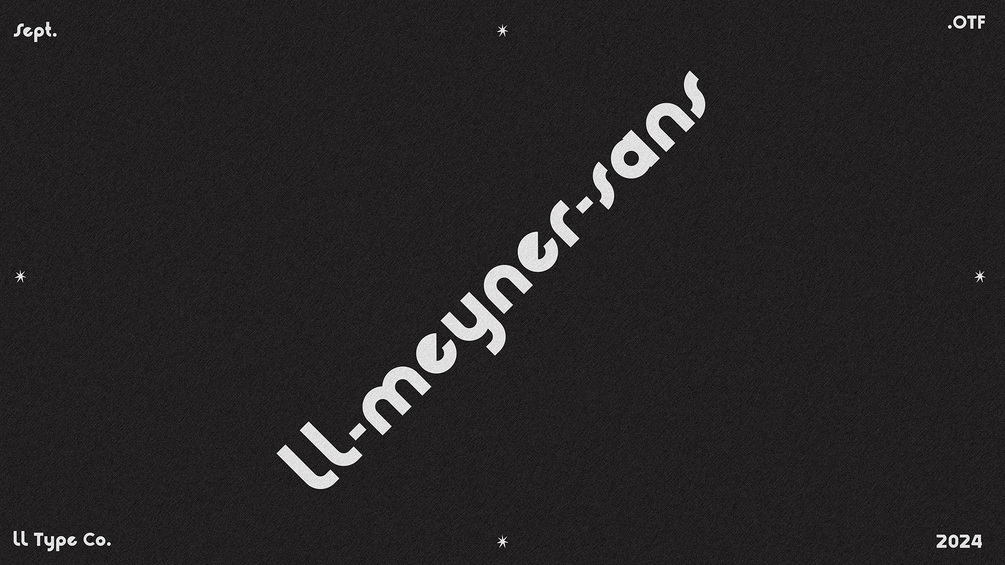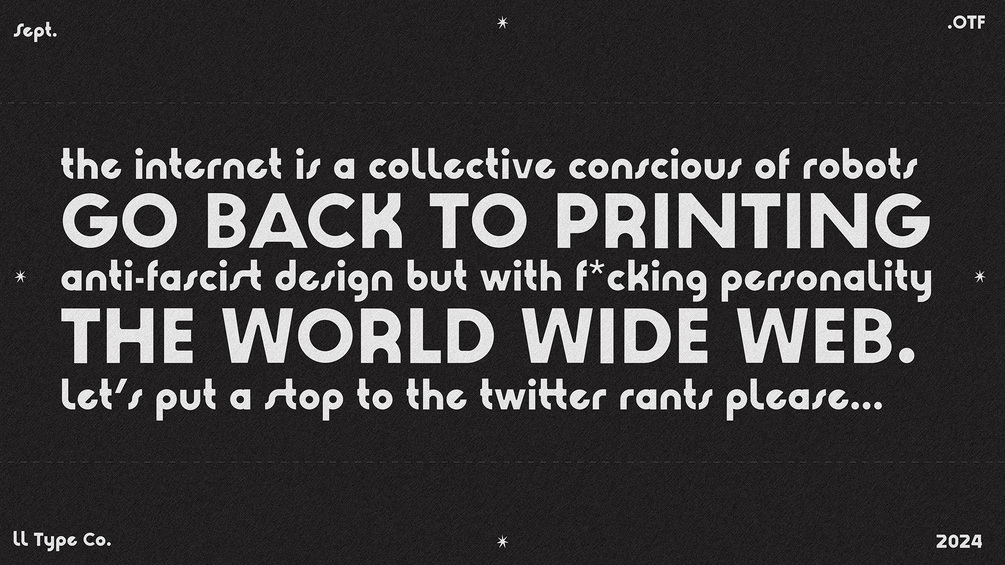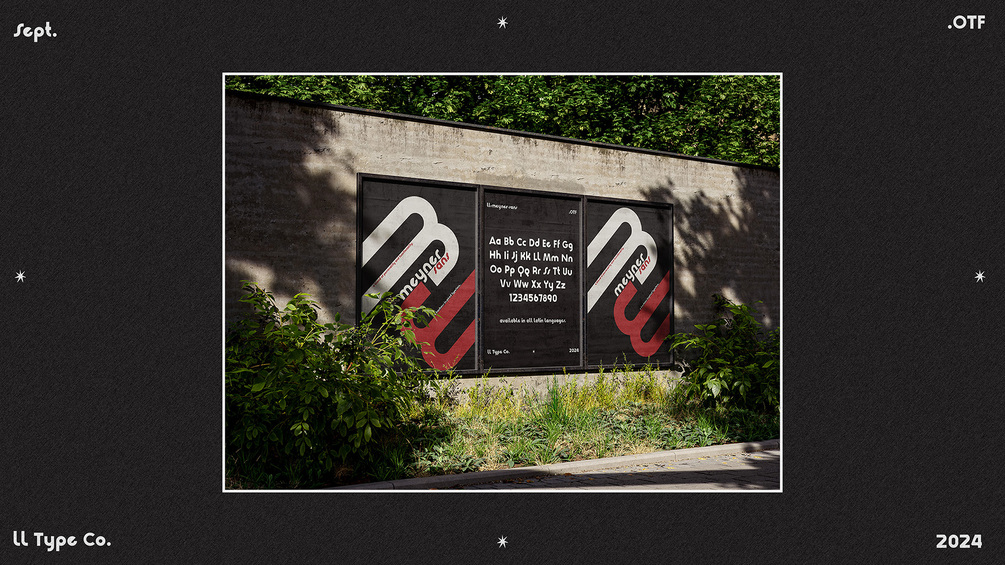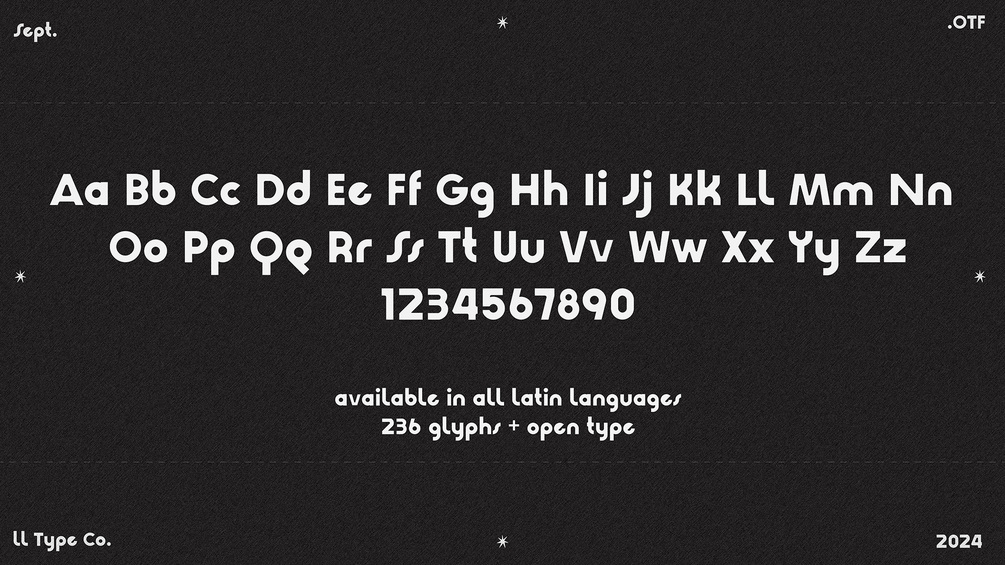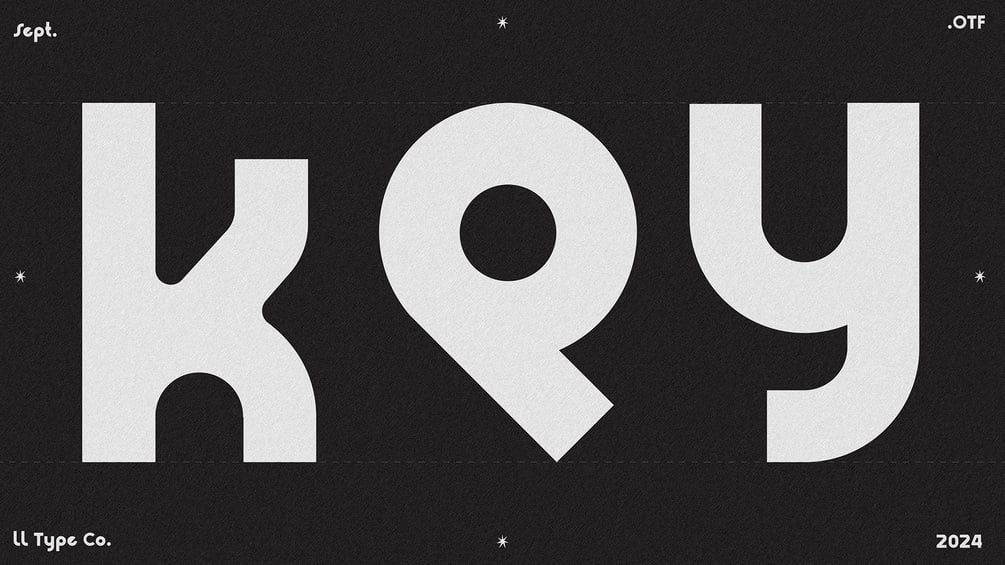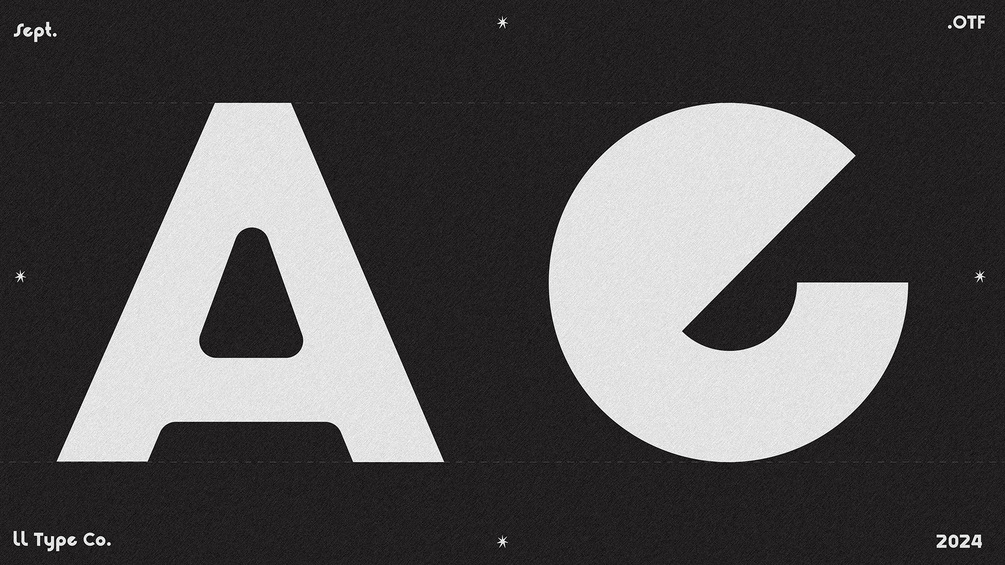
LL-meyner-sans
LL Type Co
LL-meyner-sans is a bauhaus inspired typeface with an emphasis on rounded elements, meant to bring more expressive personality into bauhaus's functional ideology. Happy designing!
LL-meyner-sans est une police de caractères inspirée du Bauhaus qui met l'accent sur les éléments arrondis, destinée à apporter une personnalité plus expressive à l'idéologie fonctionnelle du Bauhaus. Bonne conception !